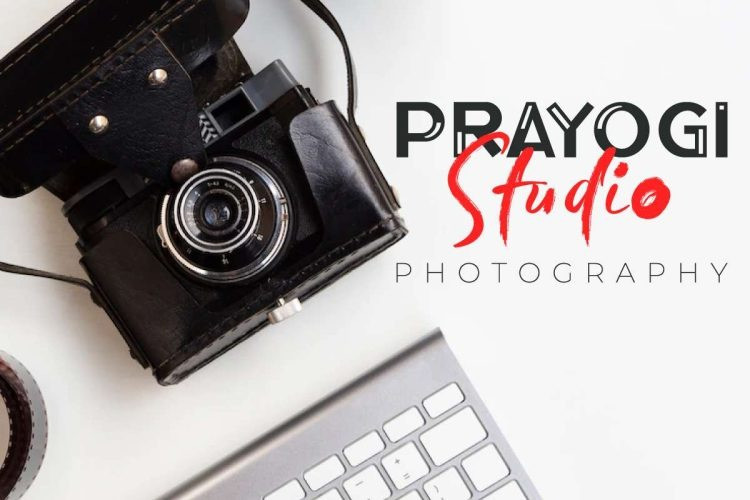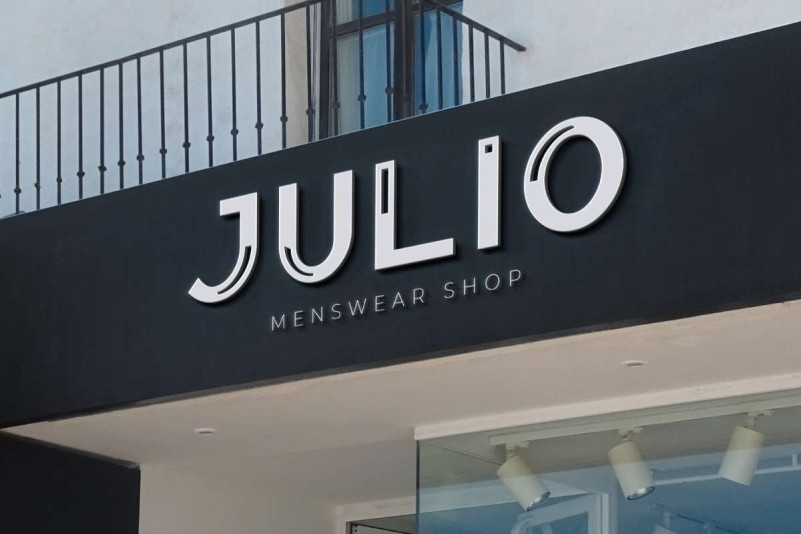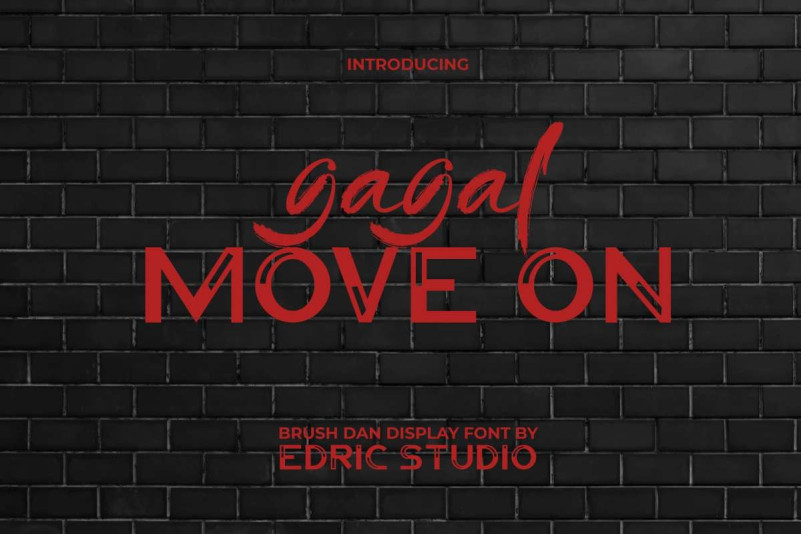
Gagal Move On Font
Gagal Move on Font is an excellent font duo with two awesome different styles, Textured Brush & Serif Display created by Edric Studio. This font takes on a dark & futuristic look to give it a surprising mix! It will be perfect for any industry, such as accessories, barbers, clothing brand, ceramic craft, coffee house, event organizer, fashion designer, furniture, music, photography, printing, publishing, restaurant, tailor, and much more.
Gagal Move on Font comes with a full set of Uppercase and Lowercase Basic Characters, Number, a large range of Punctuation and Symbol. Both are the same complete but ALL CAPS on Character Set Display for Uppercase and Lowercase. It has a stunning characters set, perfectly managed with well spaced and kerning.
Gagal Move on Font will bring difference to your design and perfect for brand logo, brochure, catalog, headline, label, packaging design, poster, quote, screen print, signage, sticker, stationery, sticker, watermark, website, etc.